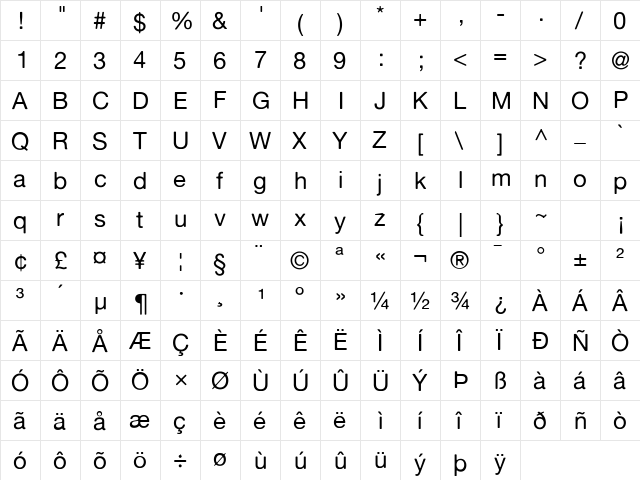
Alte Haas Grotesk Regular
| Foundry | Yann Le Coroller |
| Designer | Yann Le Coroller |
Design Context for Alte Haas Grotesk Typeface
Alte Haas Grotesk has the quiet confidence of well-executed sans-serif typography: versatile, unobtrusive, and dependable at any size.
Font Pairing: Works well alongside a characterful serif or display font that can carry the expressive load while Alte Haas Grotesk handles the functional copy.
Pro Tip: Use Alte Haas Grotesk for UI labels, navigation, and short-form body copy where clean legibility is the priority.